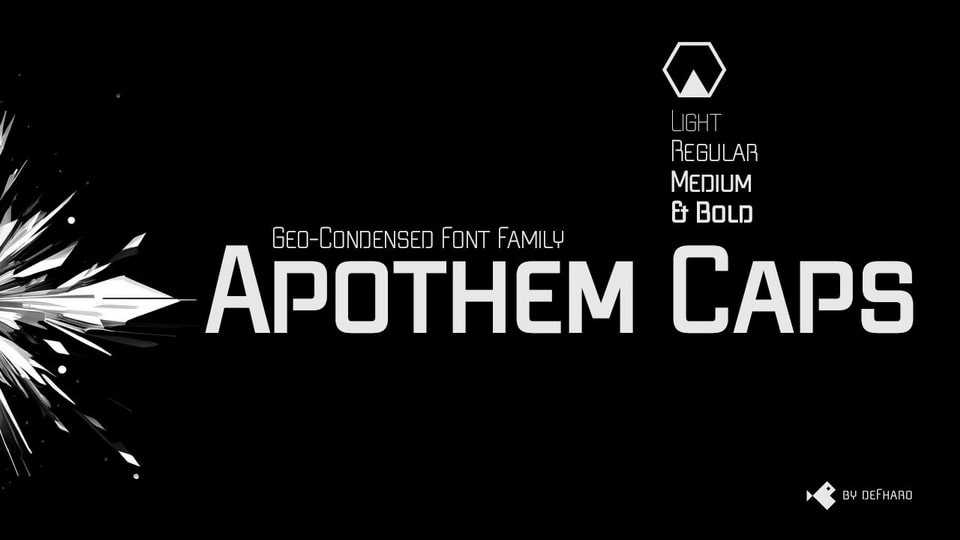
Download Apothem Caps font, a futuristic geometric typeface with condensed proportion and characterized by exceptional legibility and intrinsic elegance.
Designer: Fernando Haro